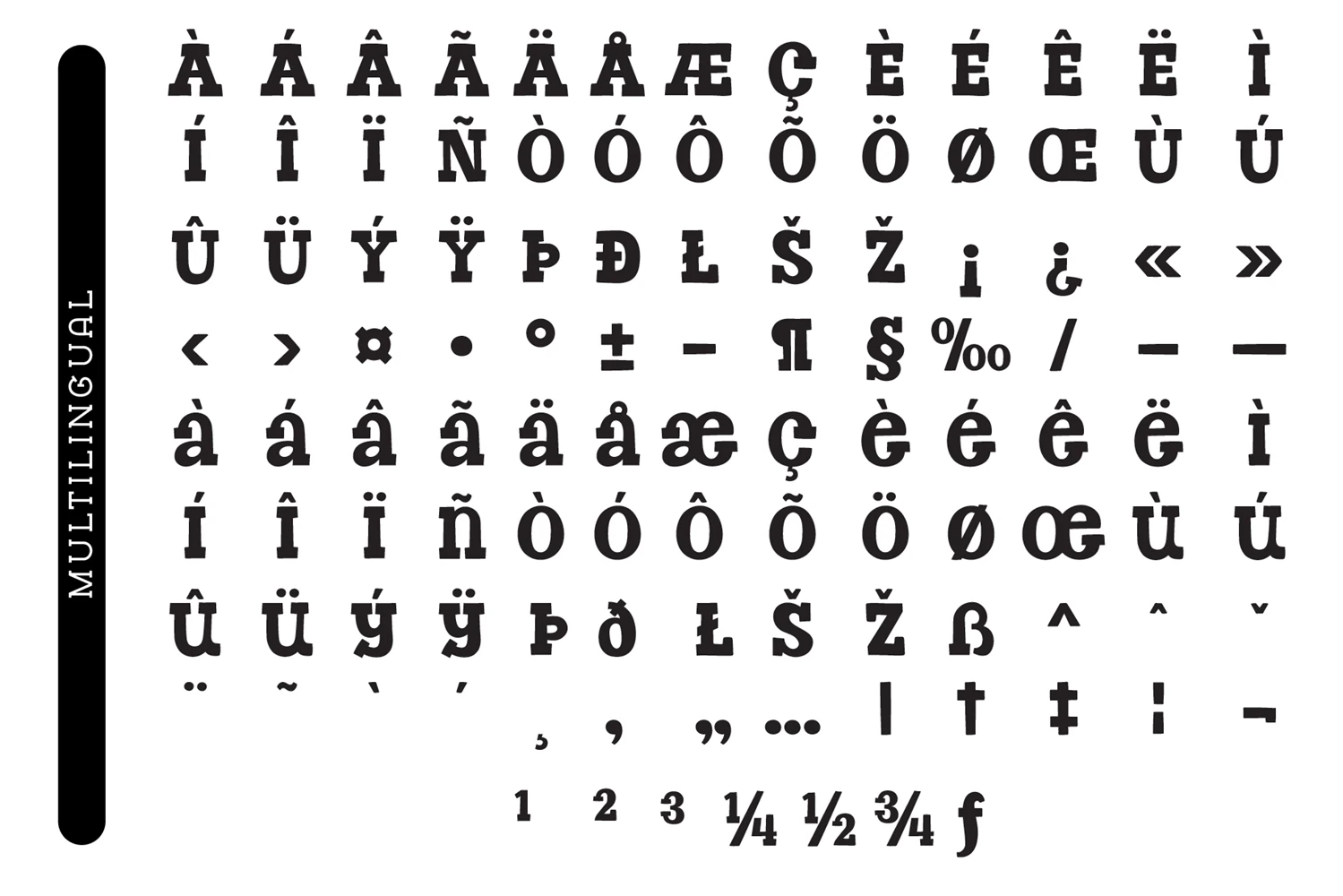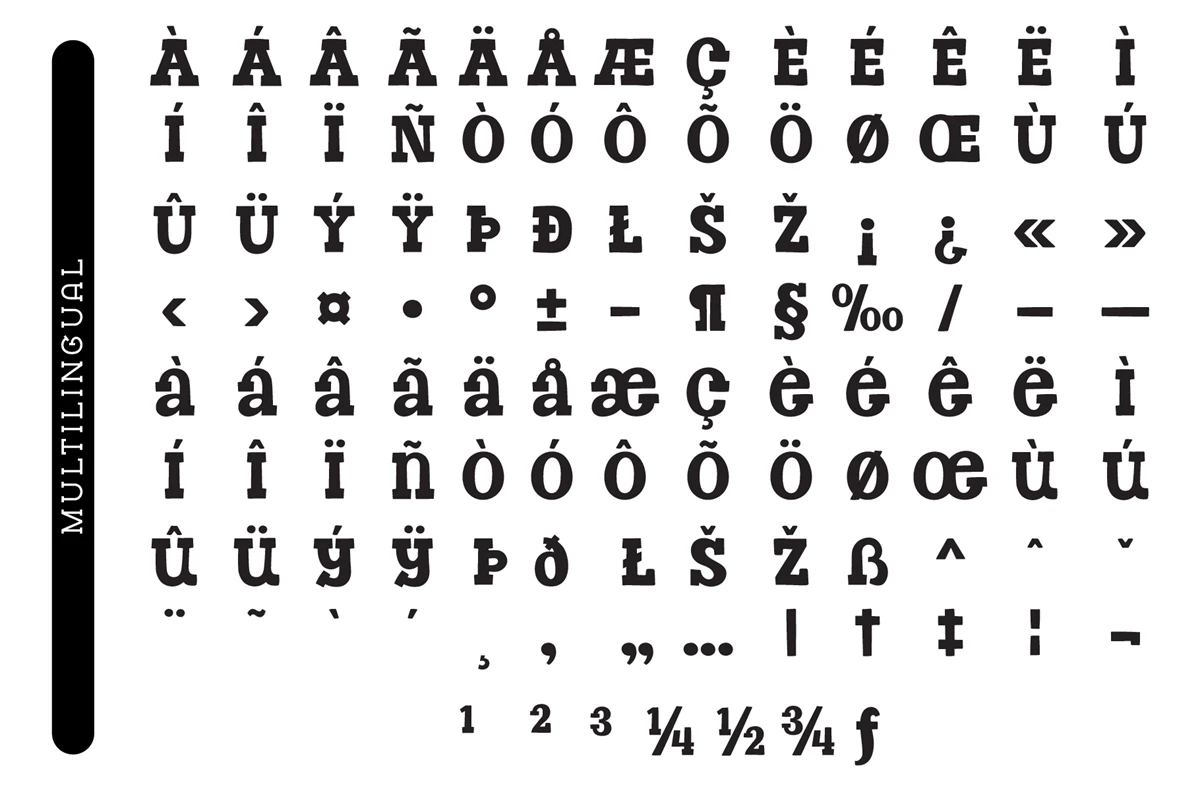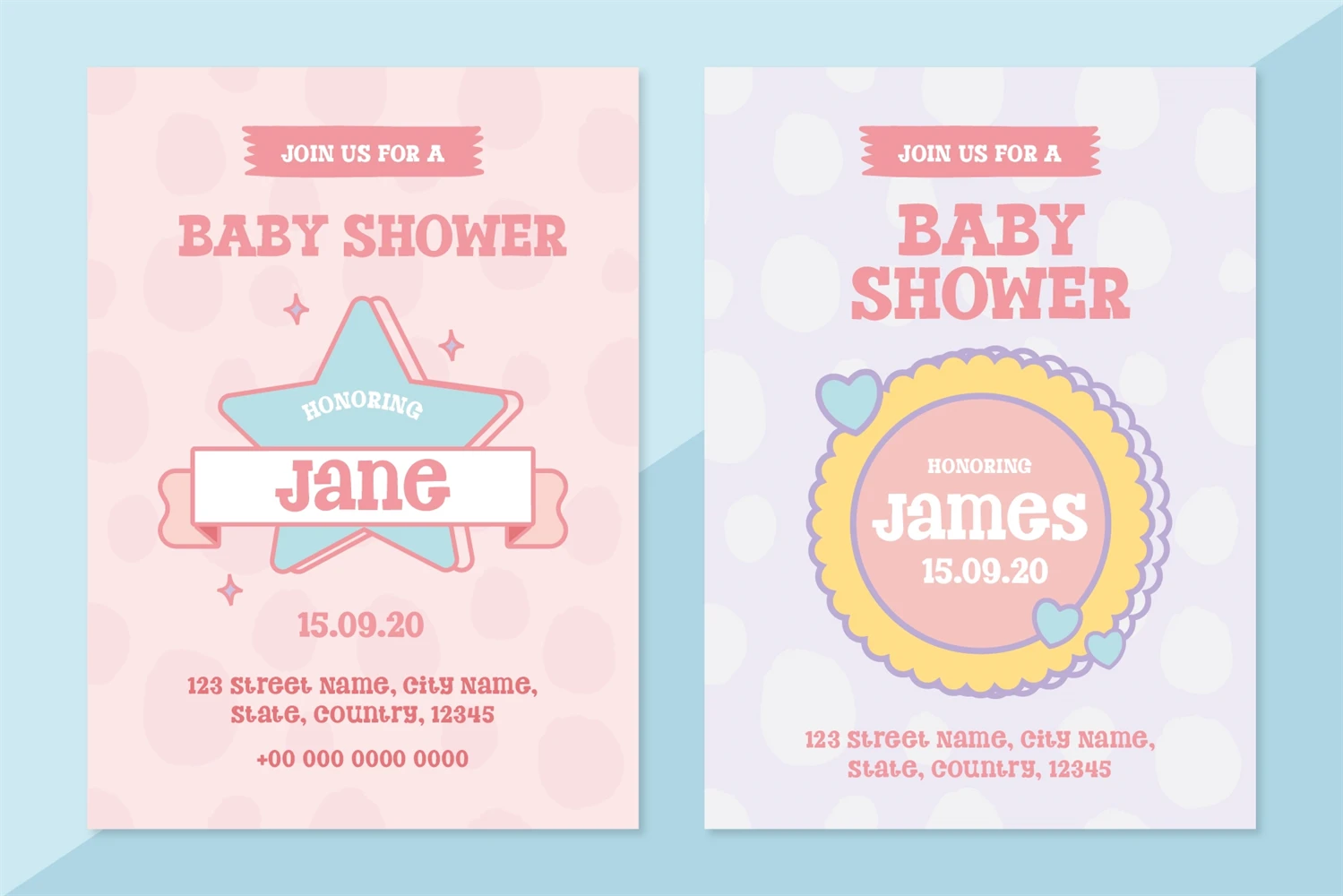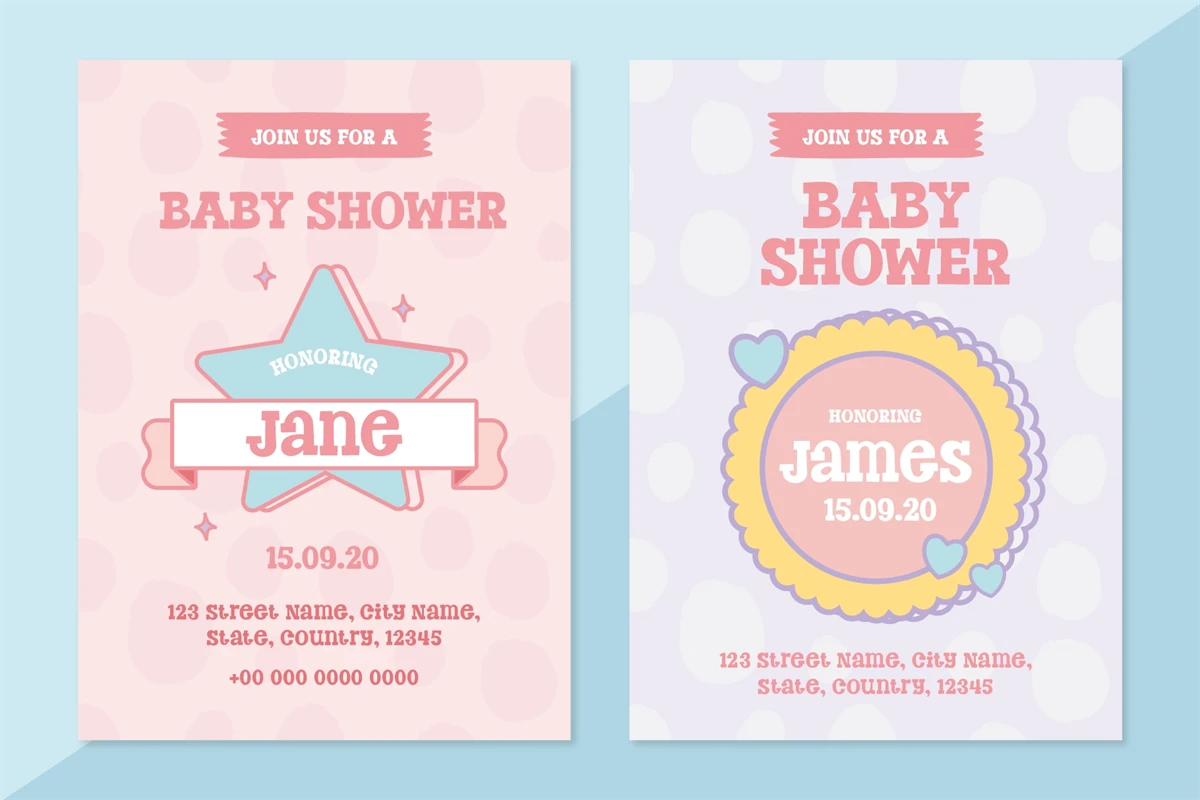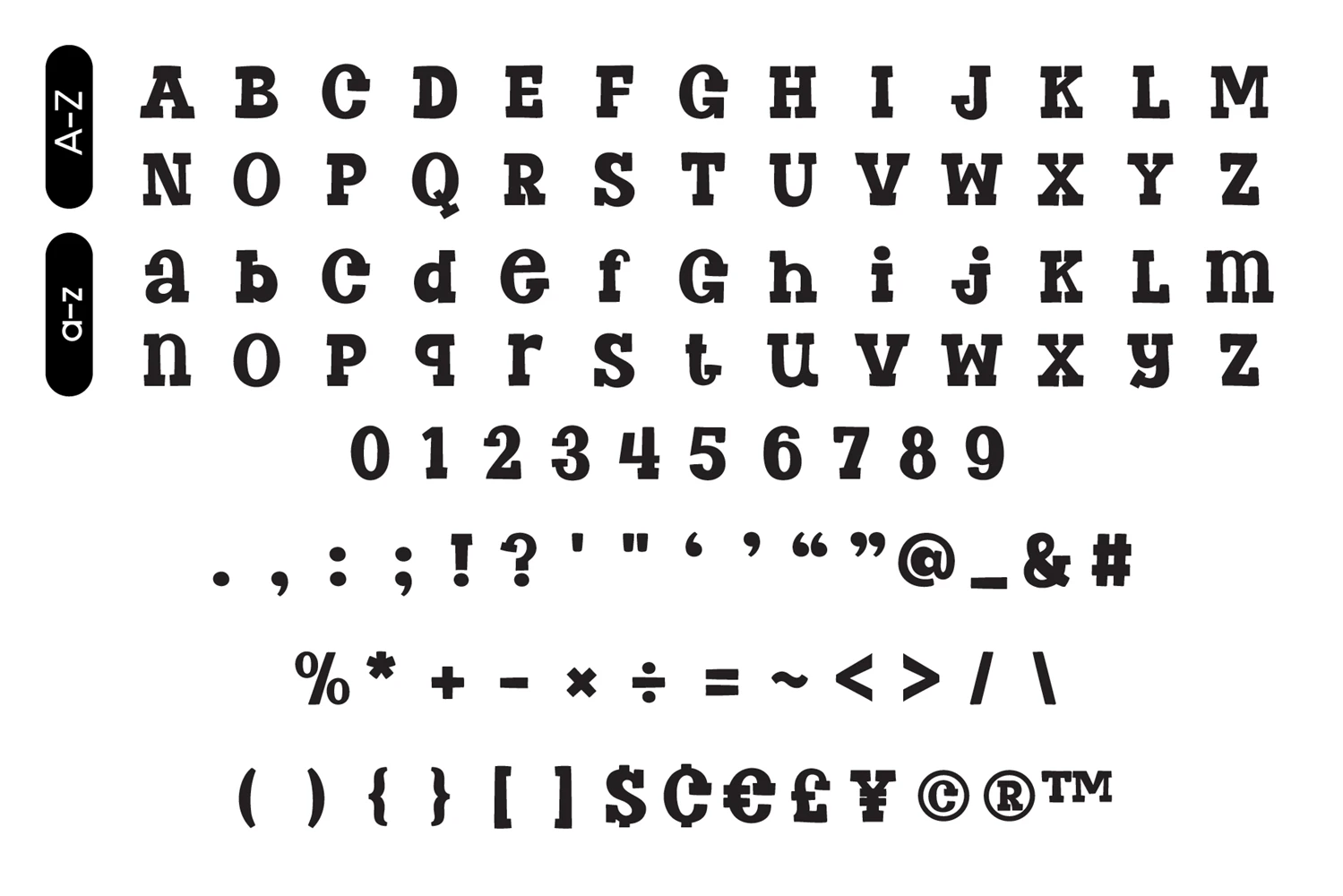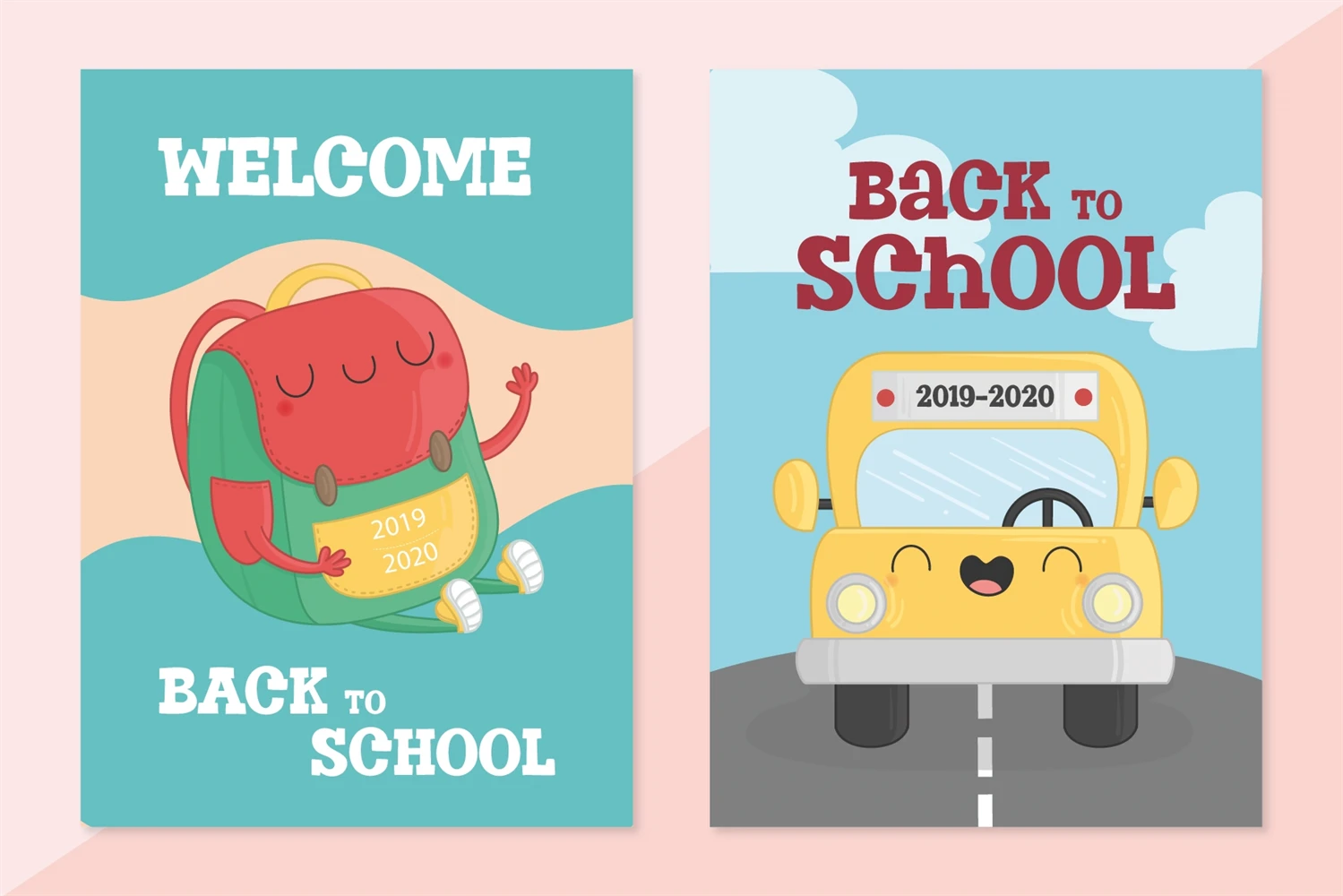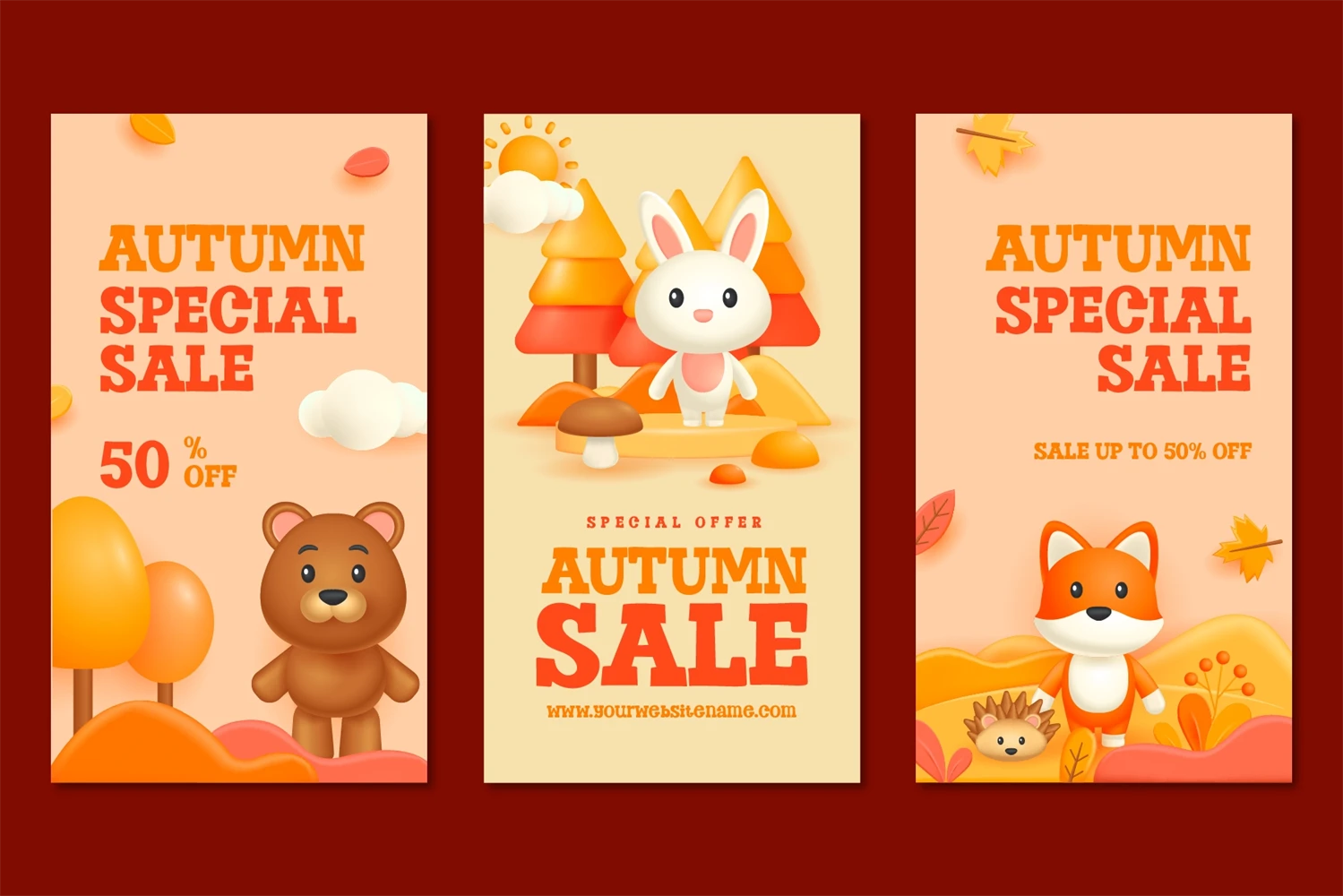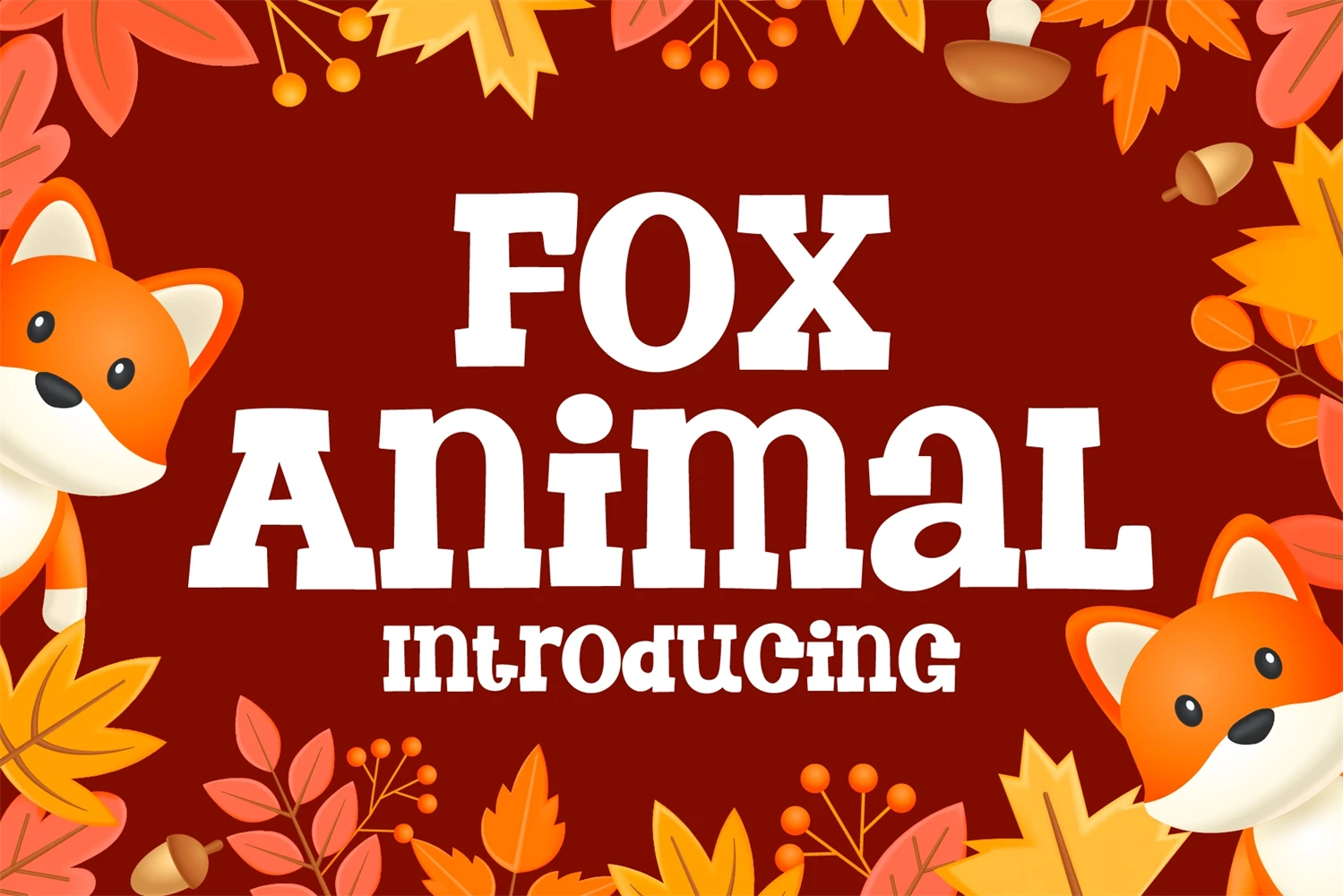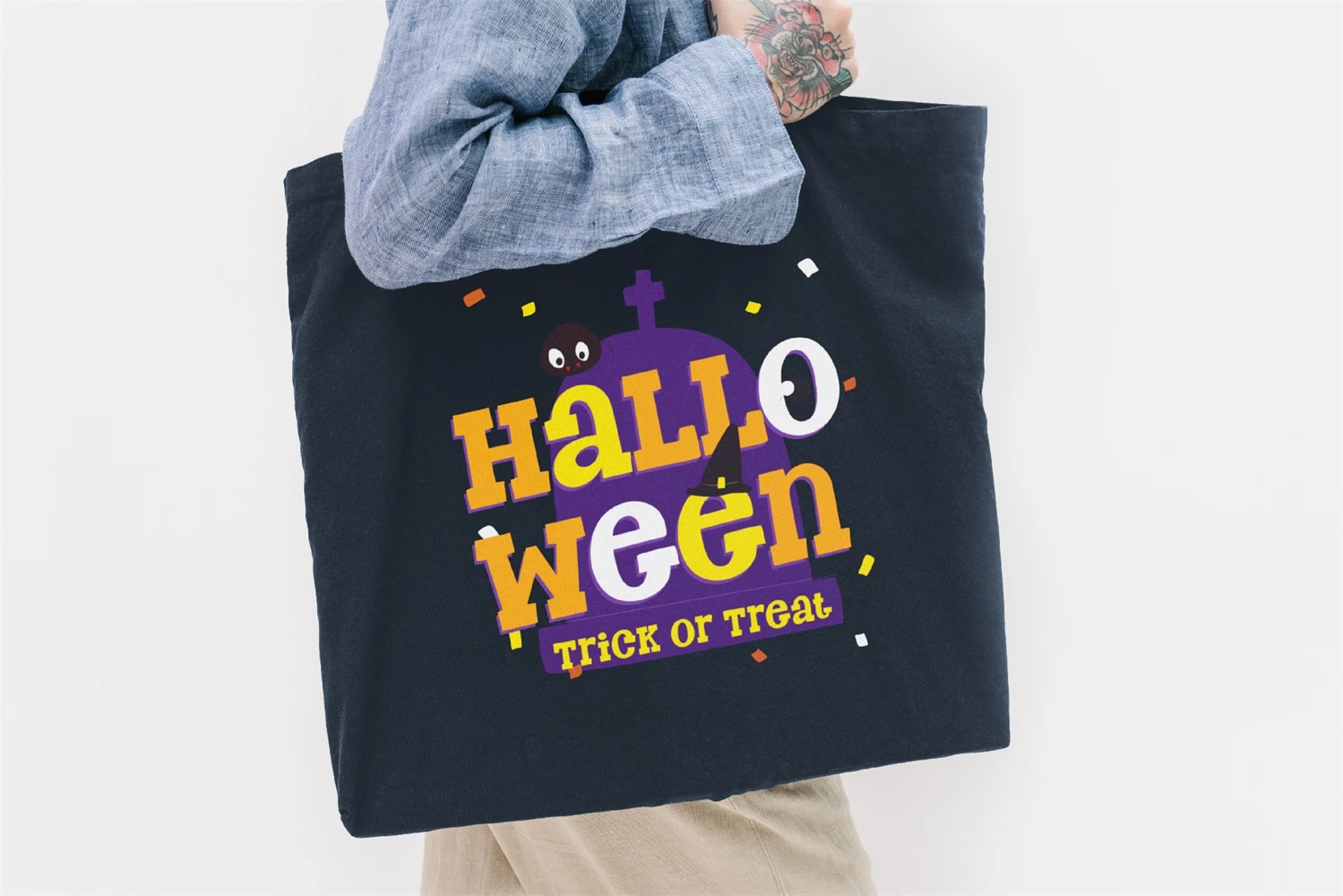
Fox Animal is a bold and playful Slab Serif Fonts that adds a captivating and energetic touch to your designs. Its main feature is its vibrant and expressive design, allowing you to create attention-grabbing headlines, t-shirt typography, banners, product labels, and more with its versatility and eye-catching presence.